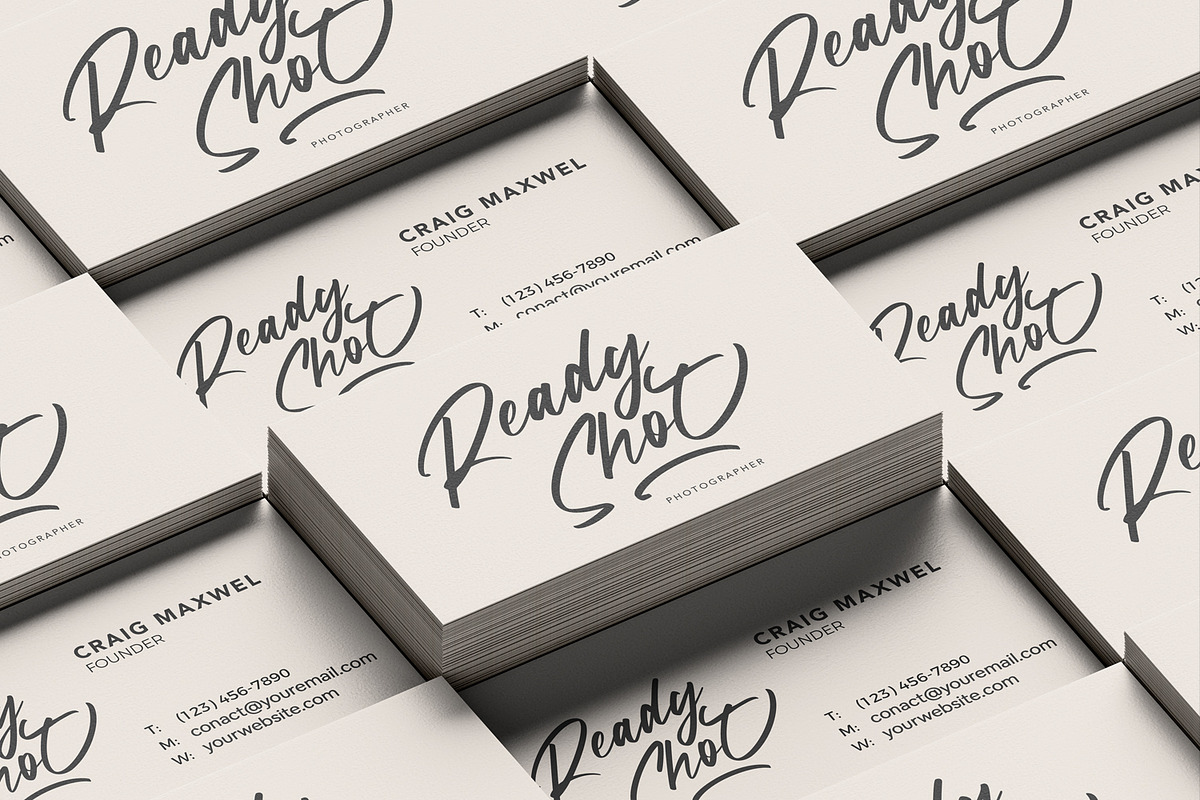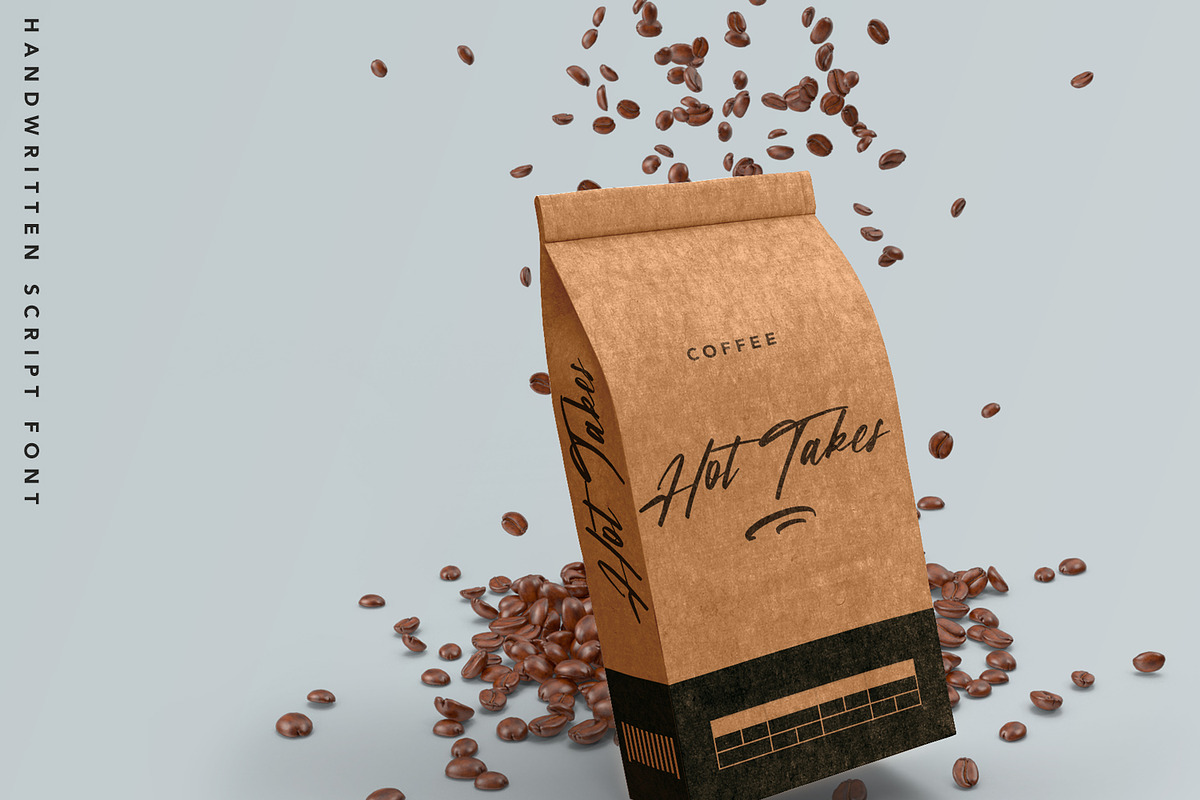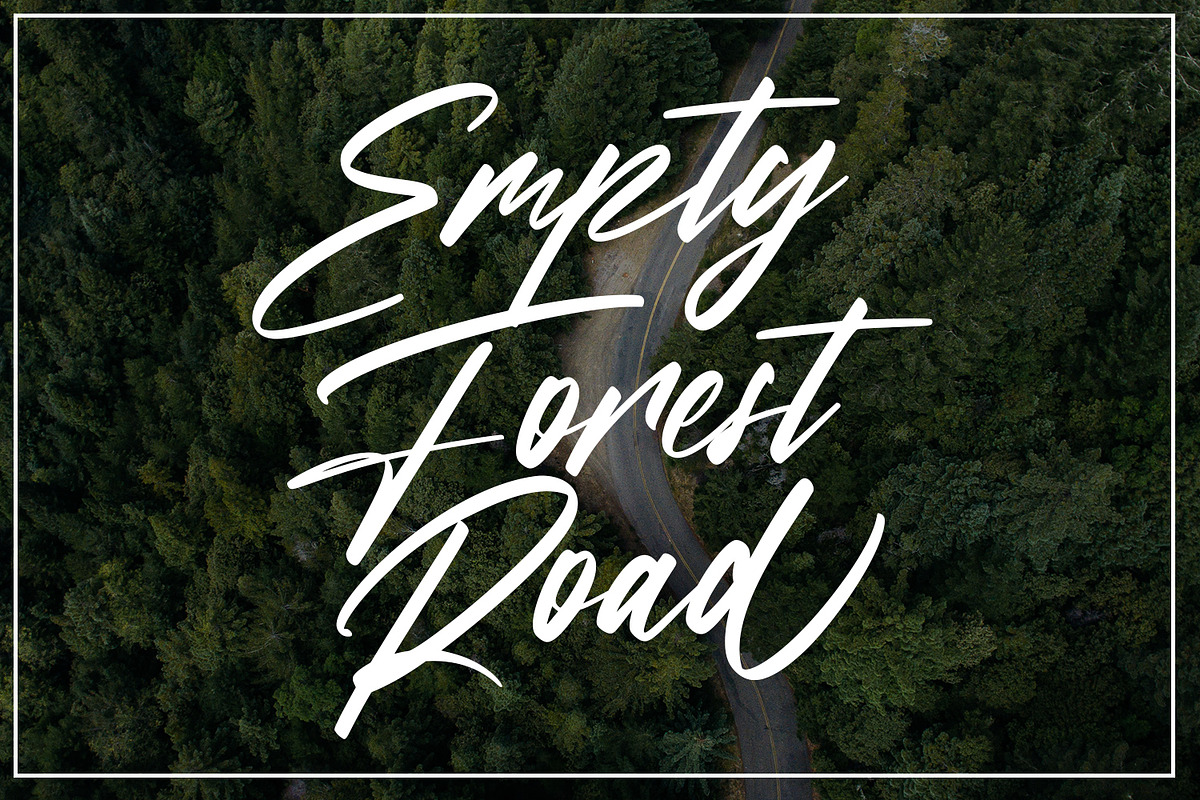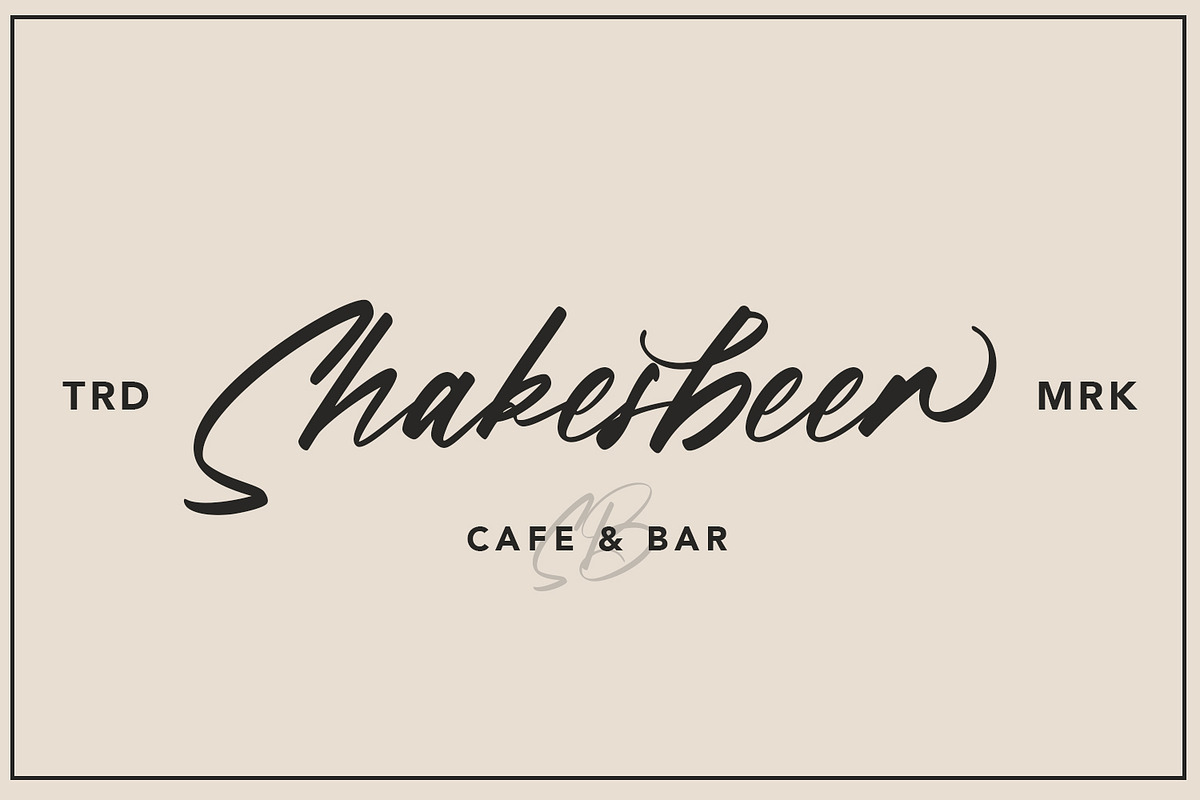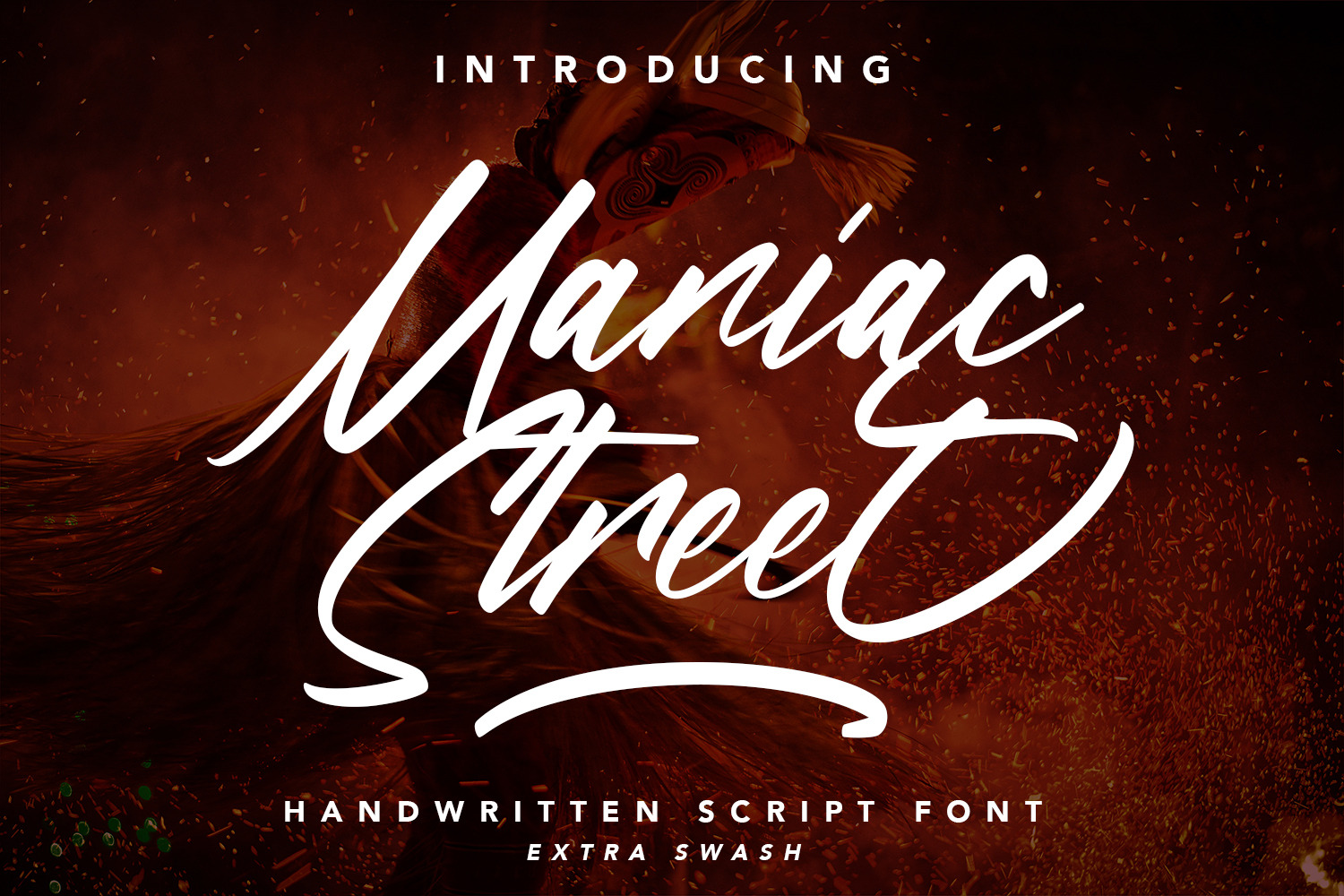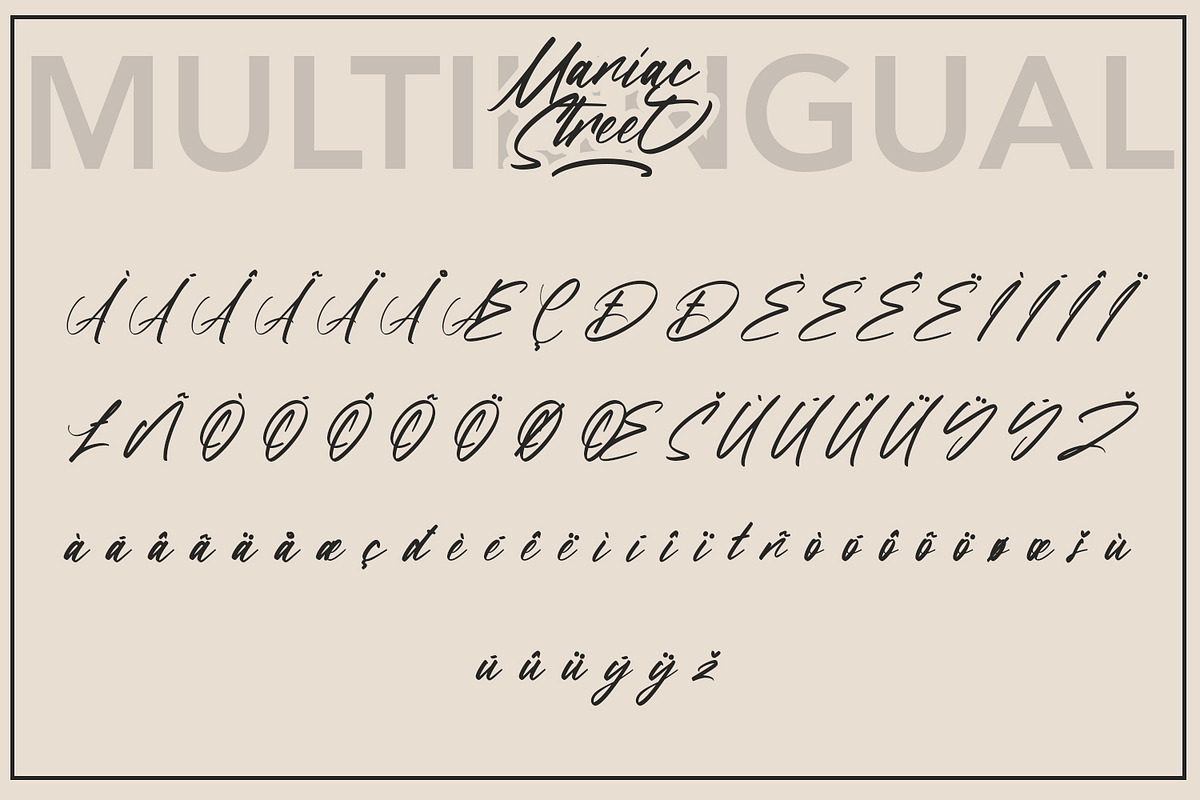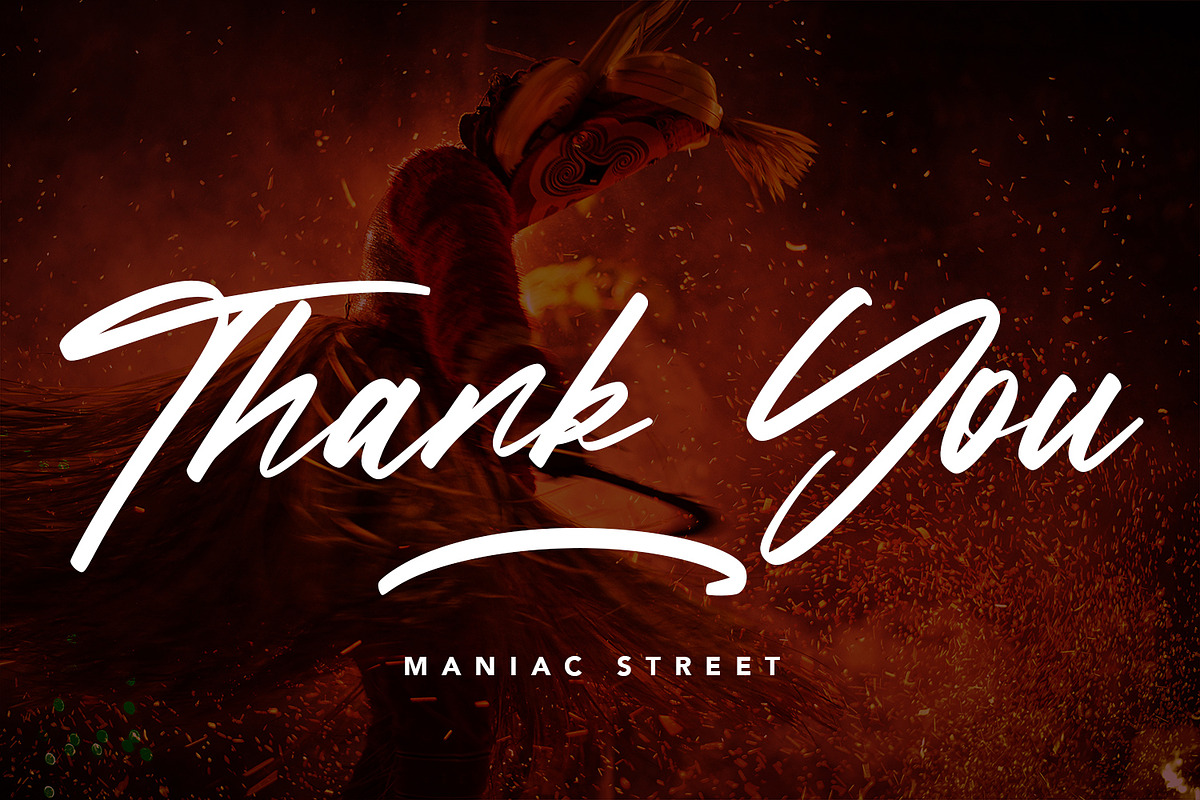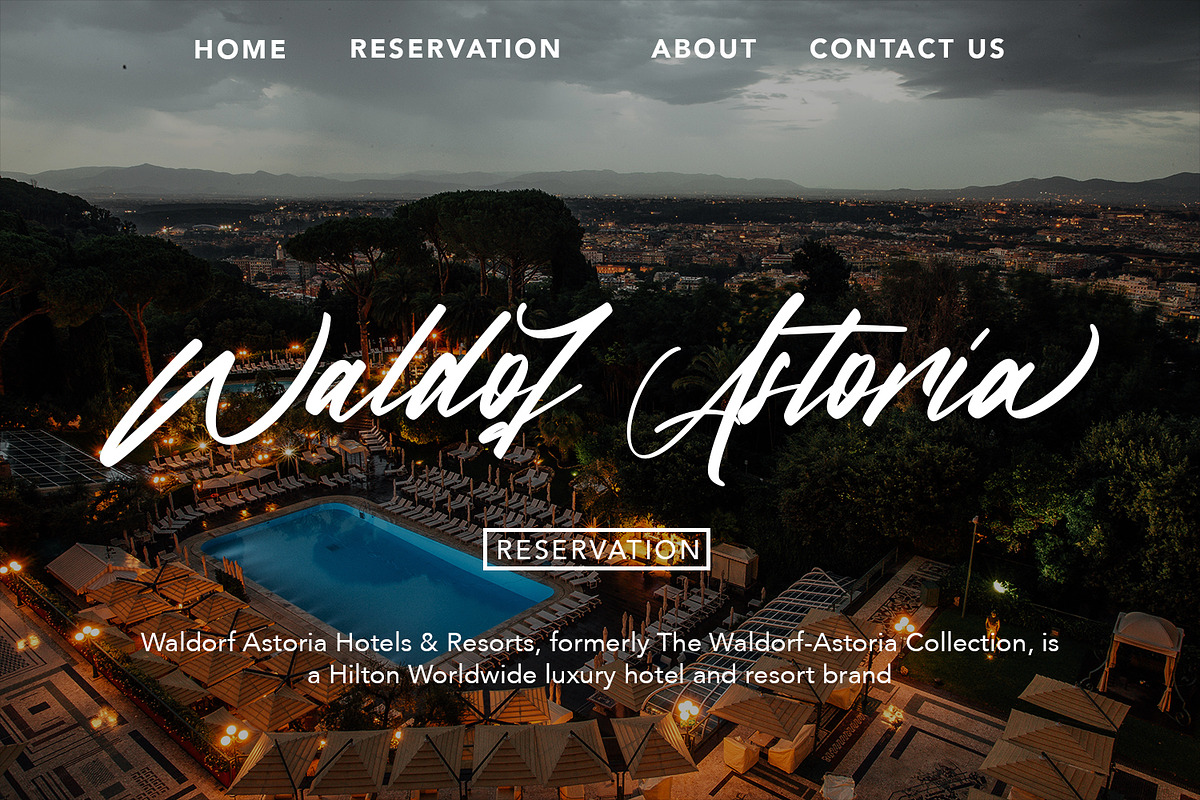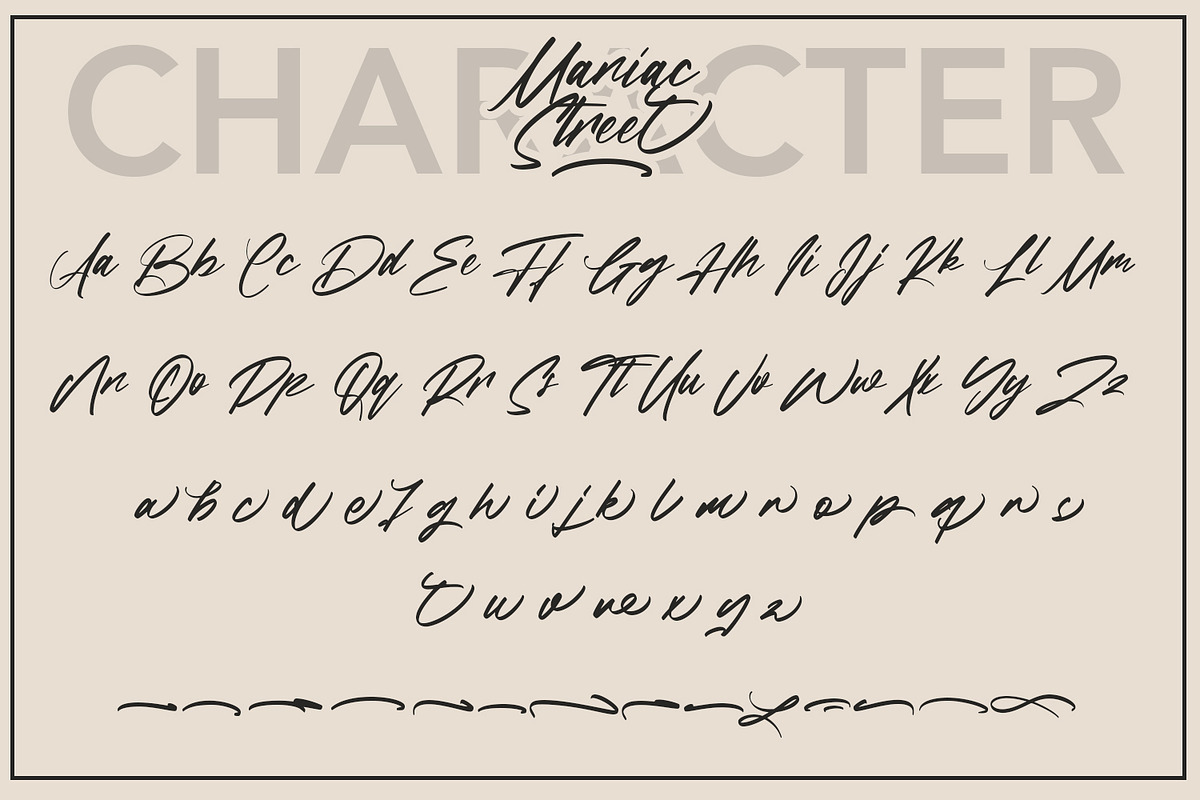
ManiacStreet-Handwritten Script Font
ManiacStreet-Handwritten Script Font contains a lowercase, uppercase, symbol, and also supports multi-language. There’s a lot of ligature in this font. ManiacStreet-Handwritten Script Font also comes with ligatures, stylistic alternates and many more. this font suitable for fashion, branding, catalog and other design that you want.